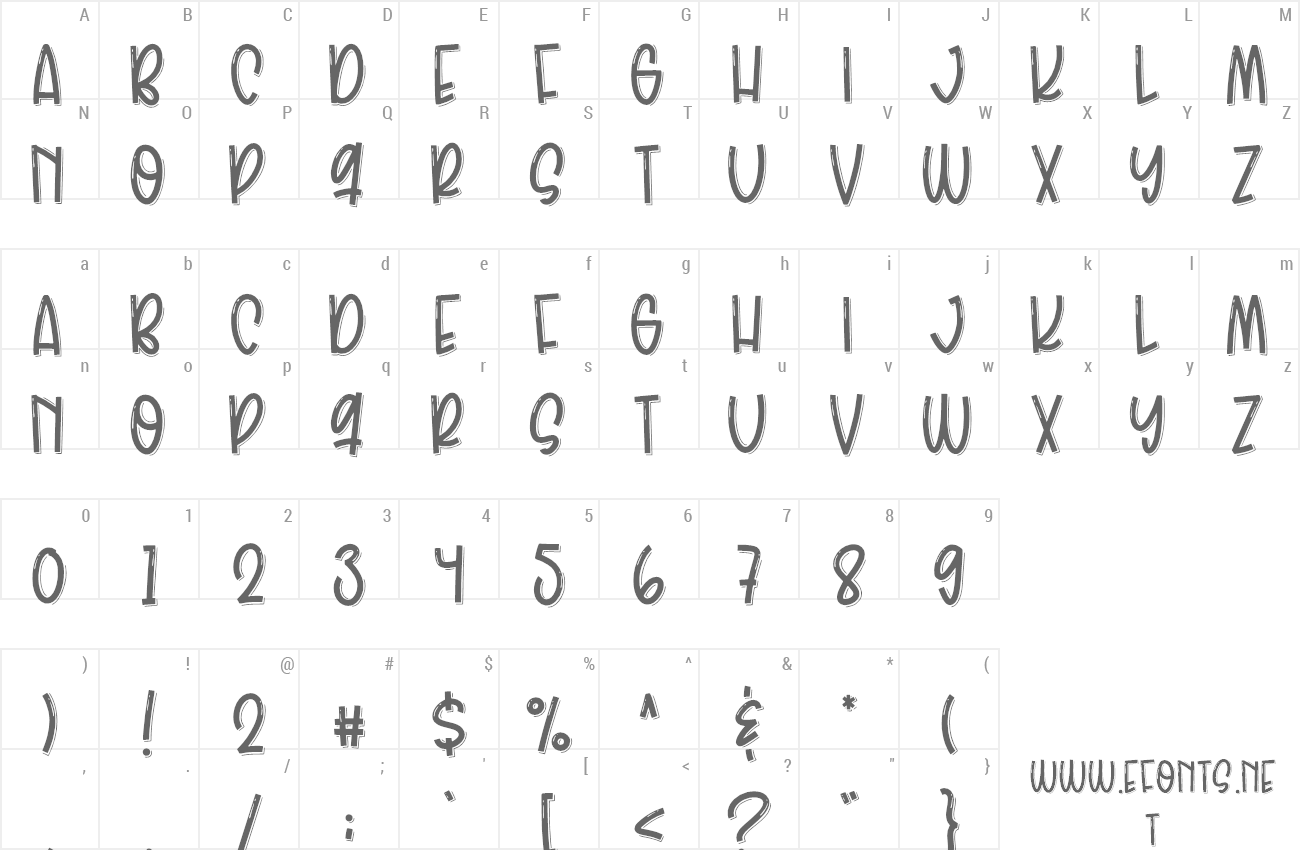
Thank You for Downloading SOREDONA - layered handwritten font - It is great for branding, packaging, quotes, t-shirt design, card, banner, cutting, silhouette, and anything of craft project. This fonts license is Free For Personal Use Only with limited features. if You Want to Use for Commercial Project, Please Purchase it on the following link https://www.creativefabrica.com/product/soredona/ref/236322/ or contact us at panggahlaksono@gmail.com Regards Abo Daniel Studio |